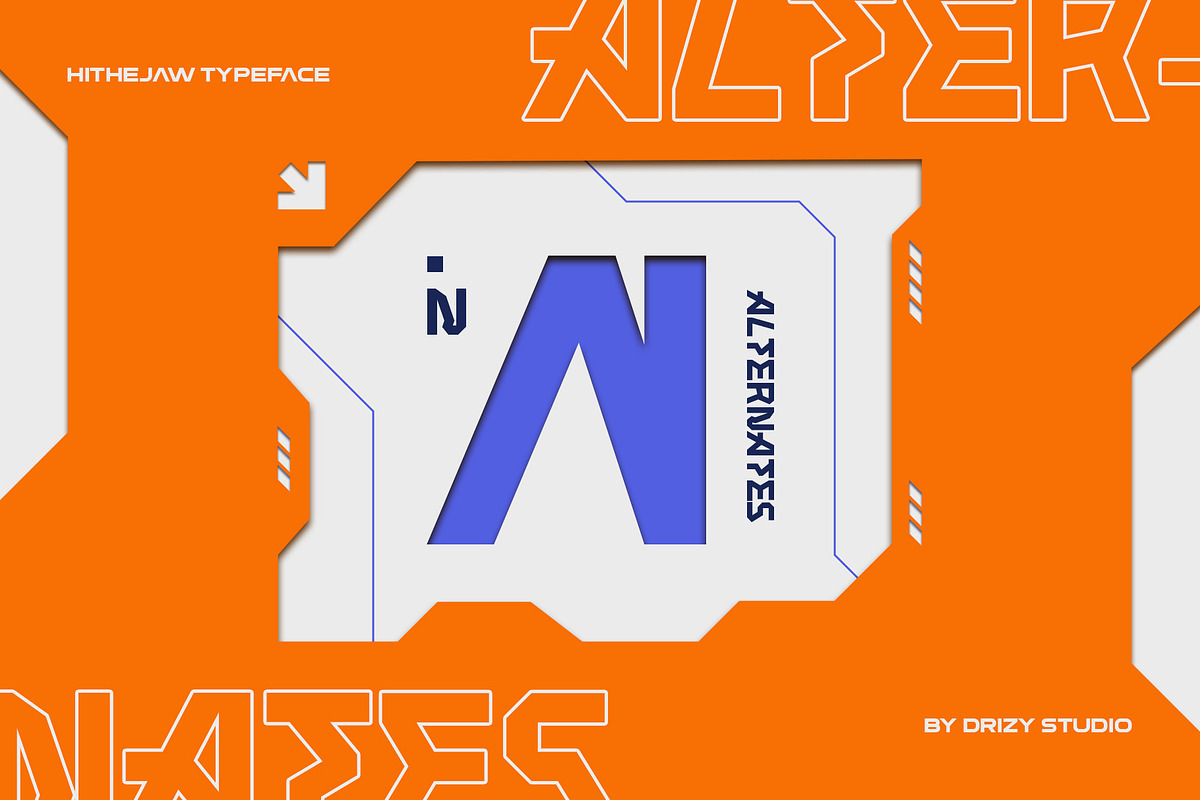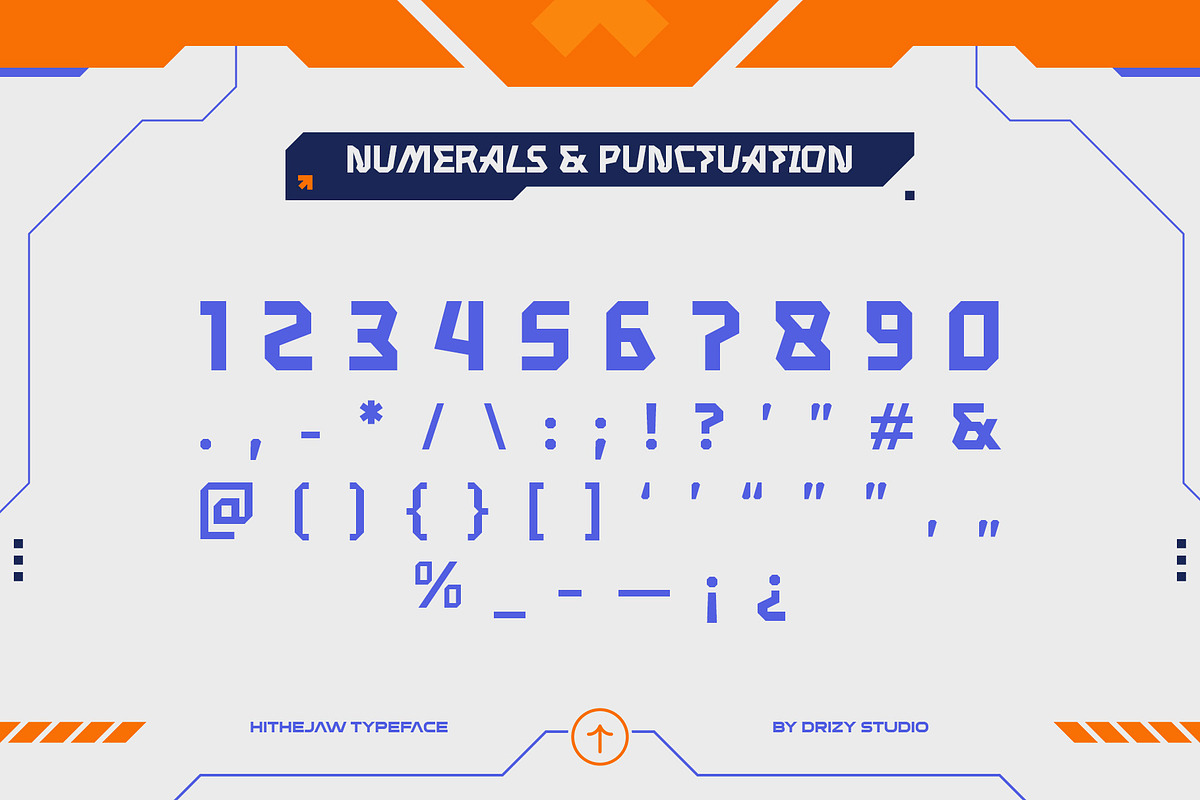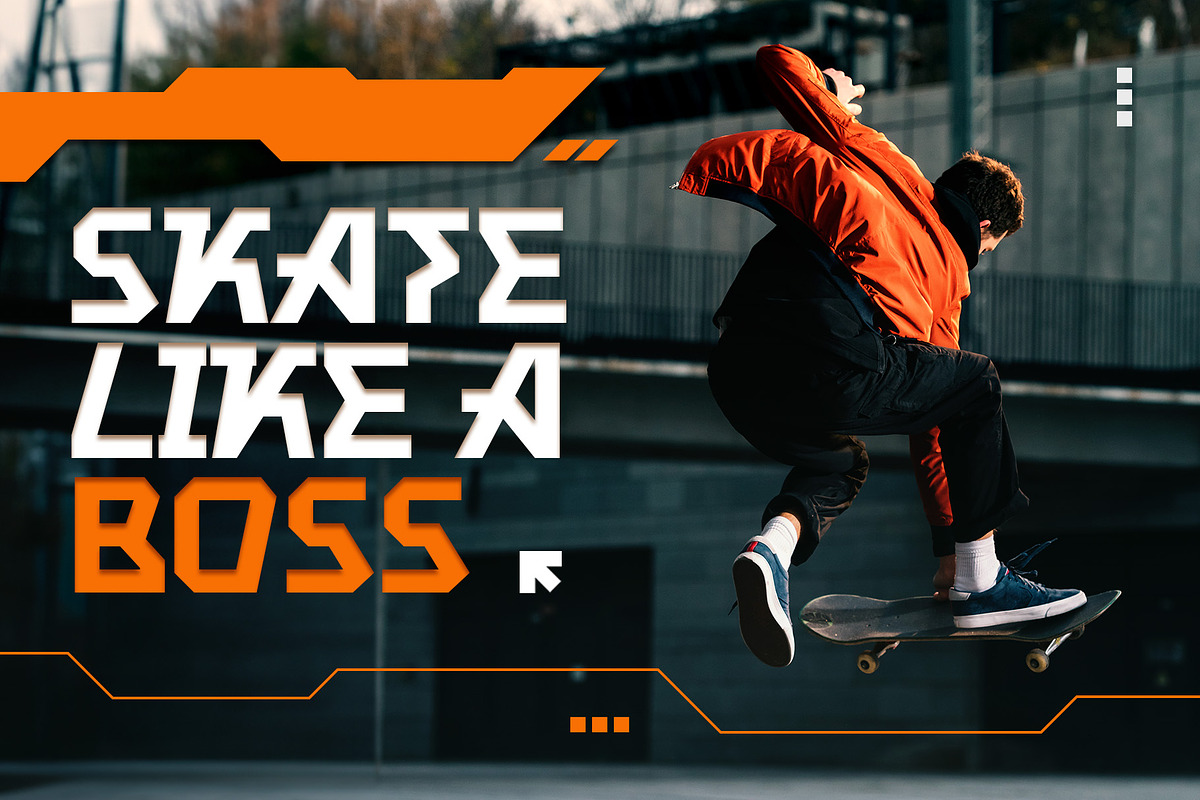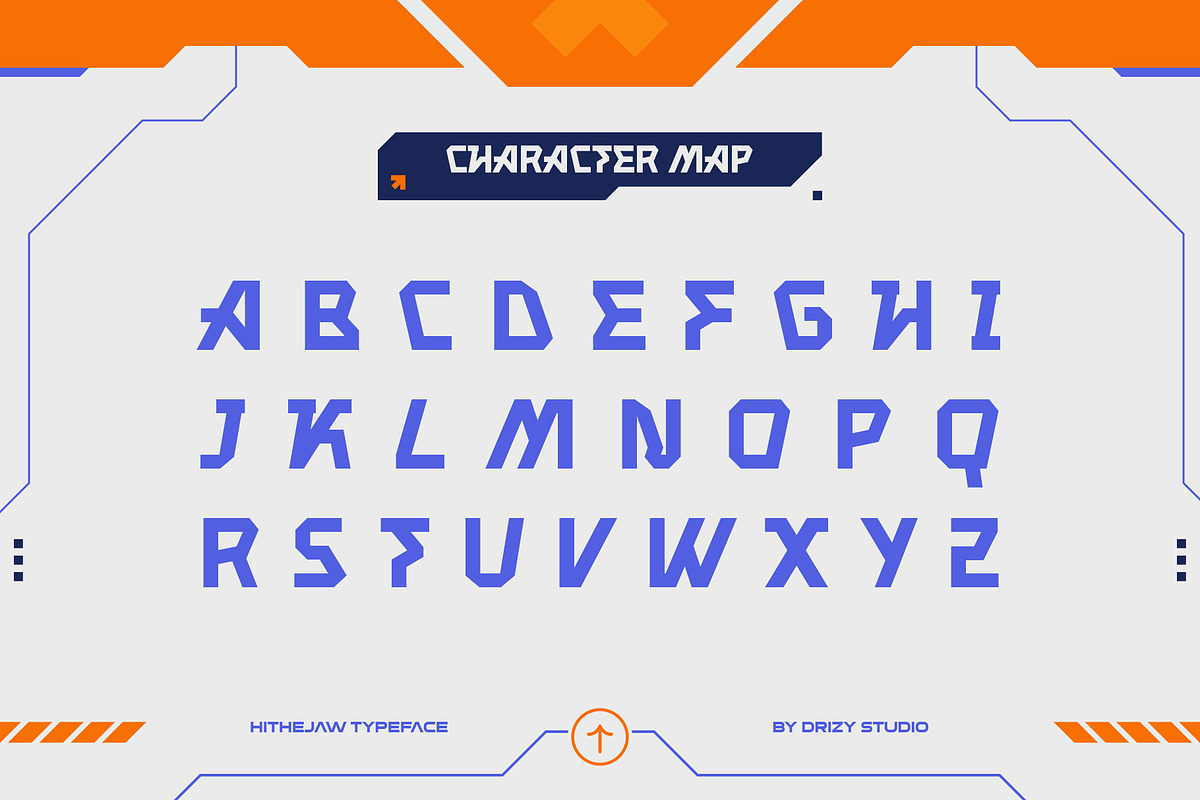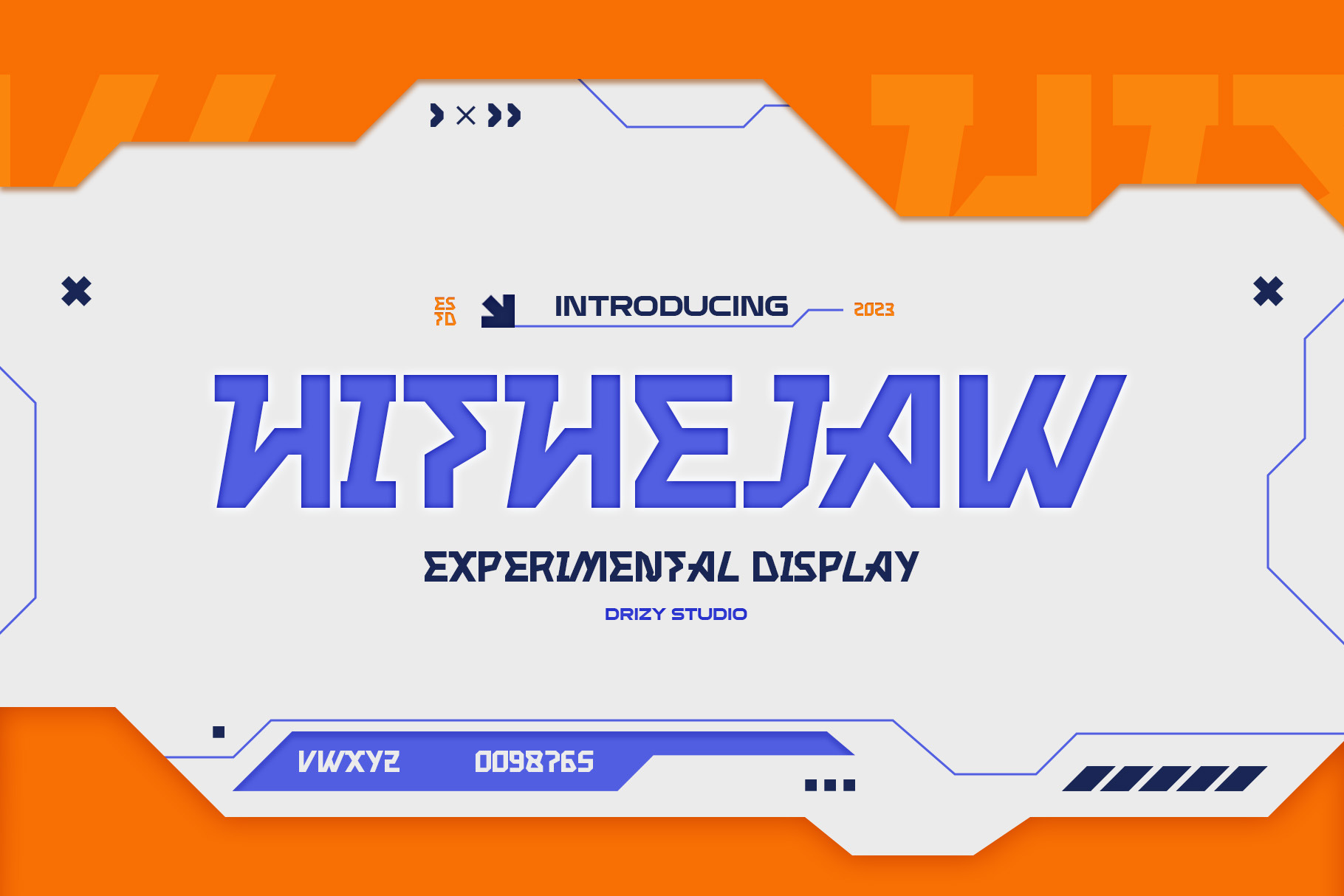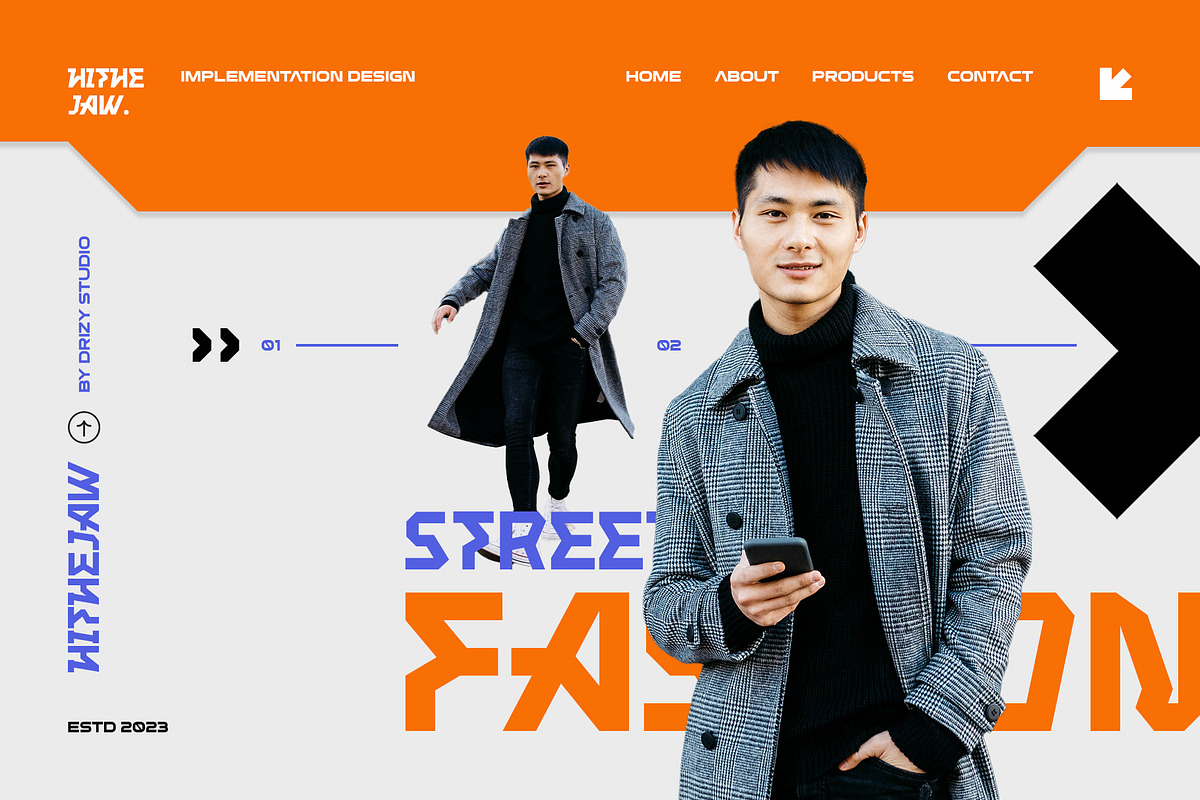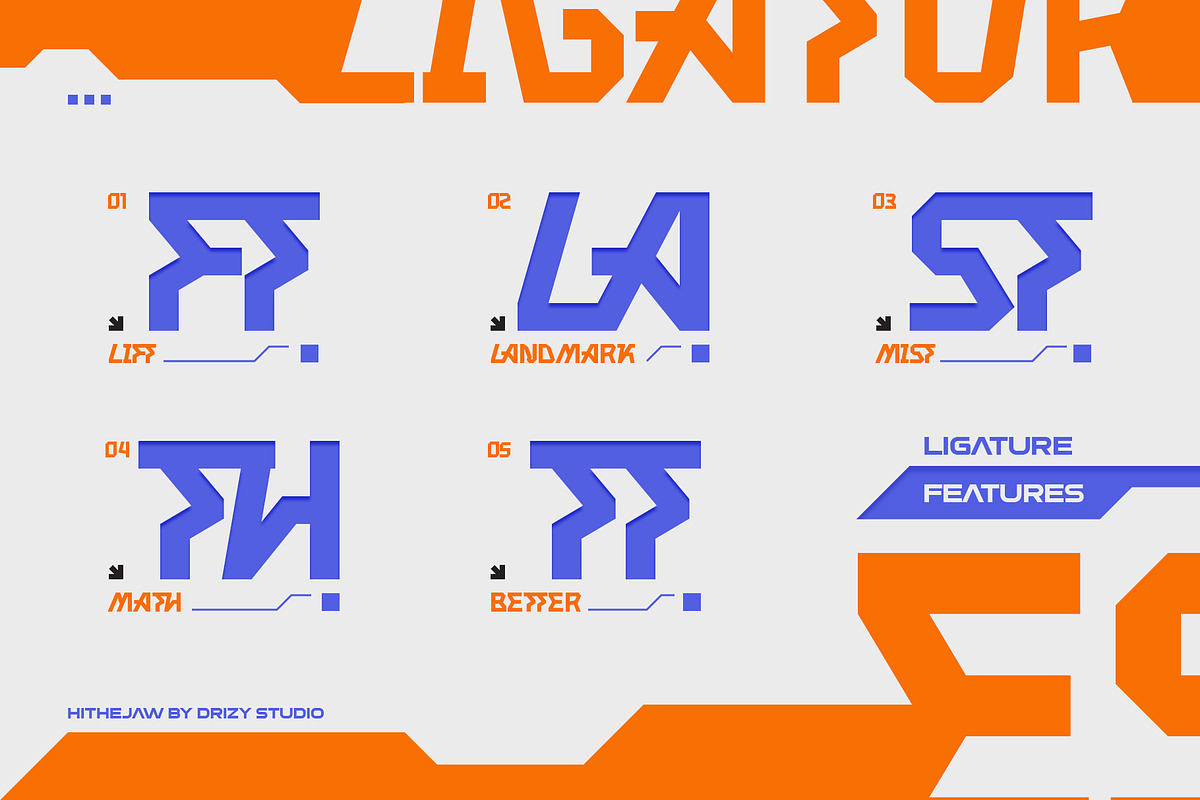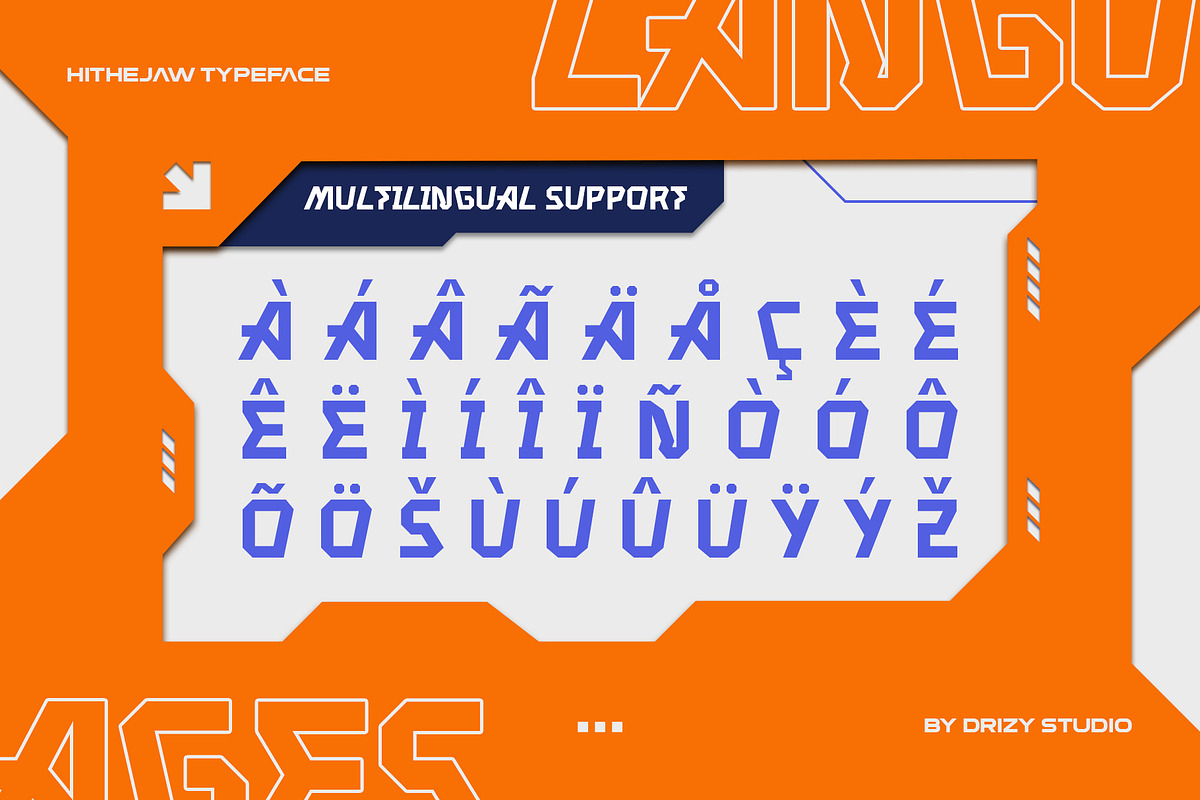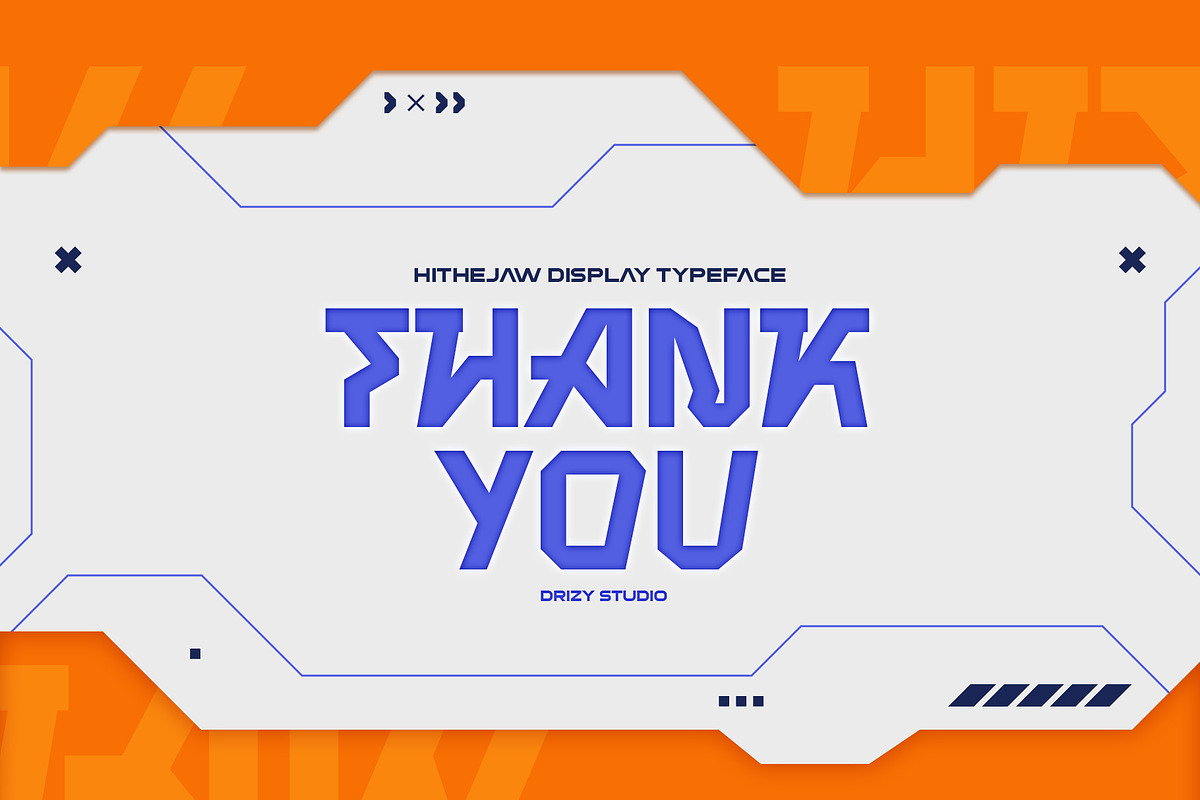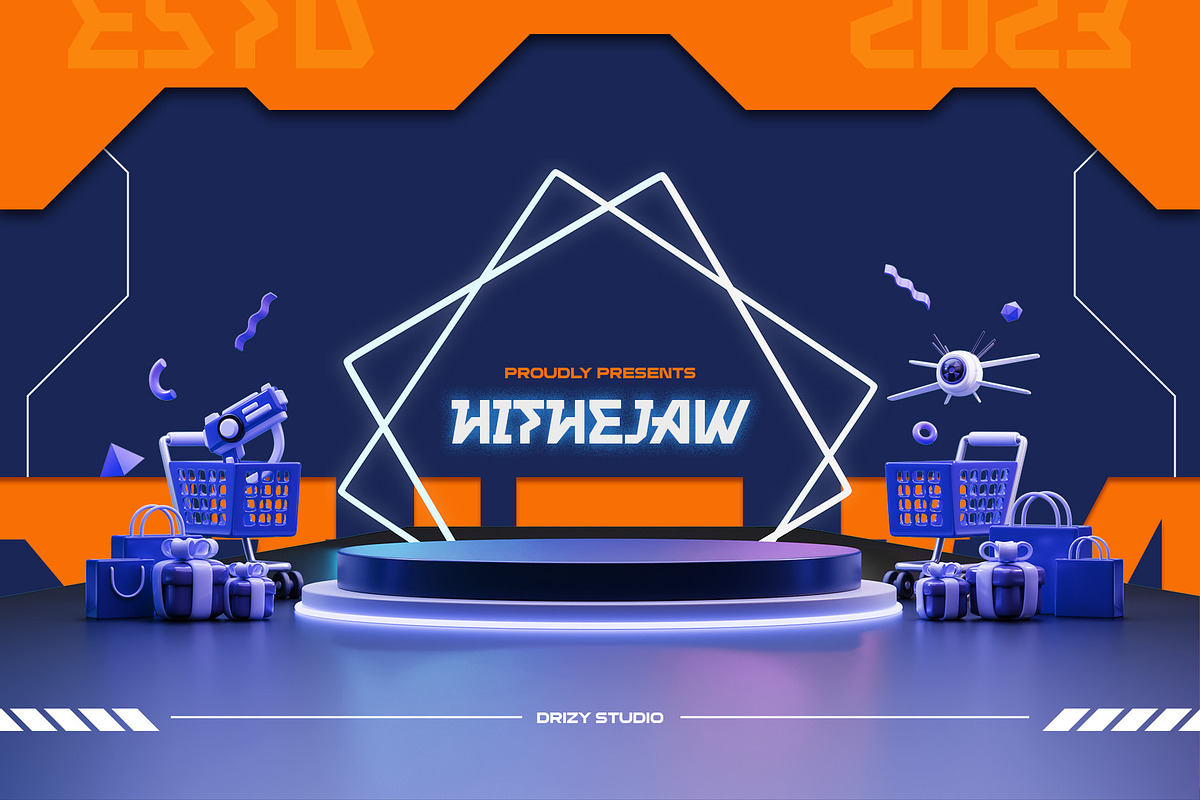
Hithejaw - Modern Experimental Font
Prepare to step into the future of Hithejaw Font, a modern experimental font that defies convention and sets a new standard for contemporary design. "Hithejaw" is not just a font; it's a visual experiment, a creative revolution in the world of type design.
Hithejaw features: Character Set Punctuation & Numbers Multilingual Support Ligatures Alternates